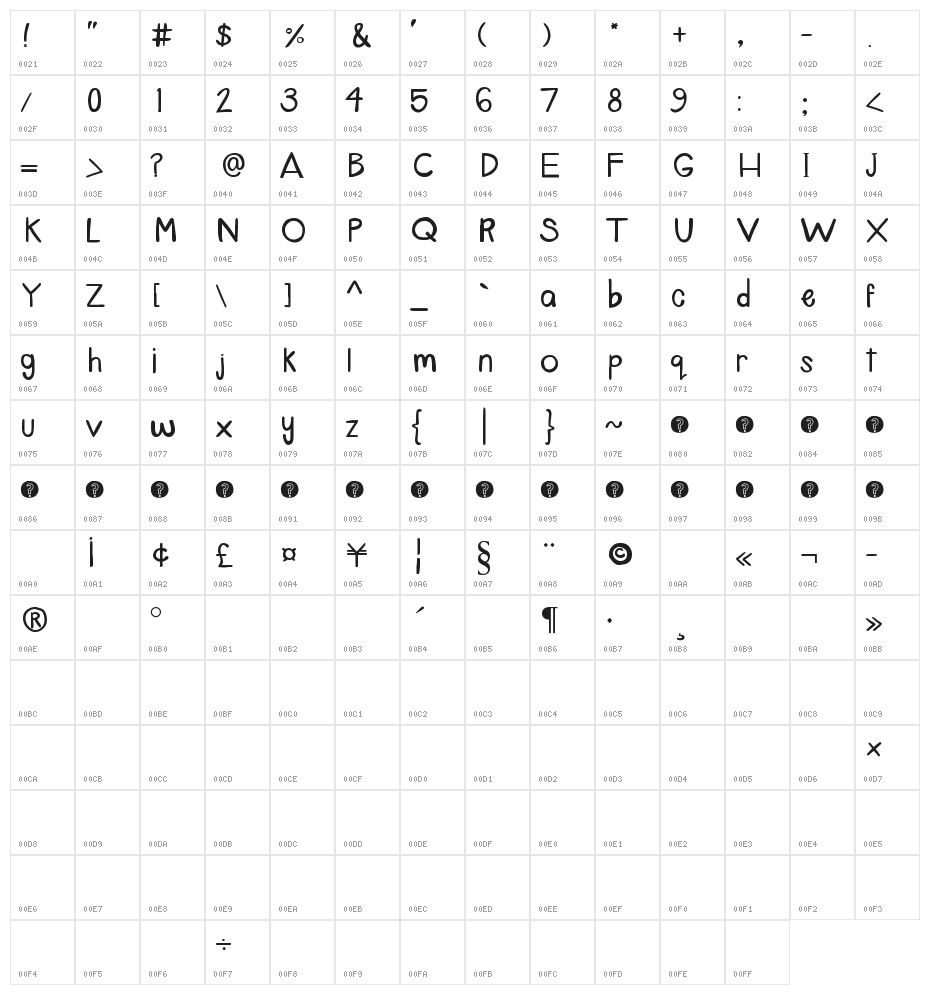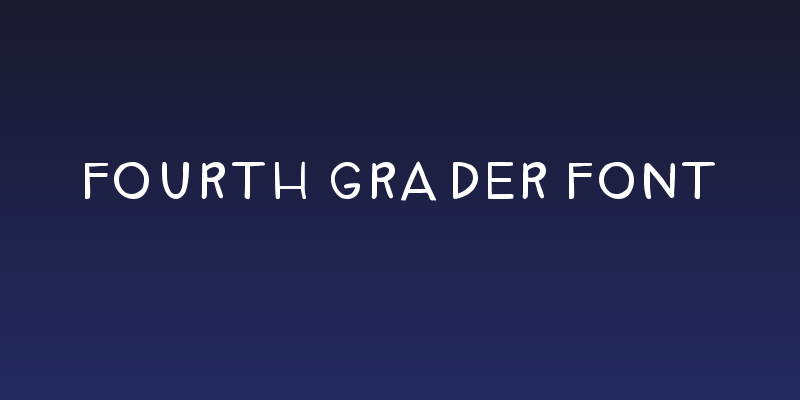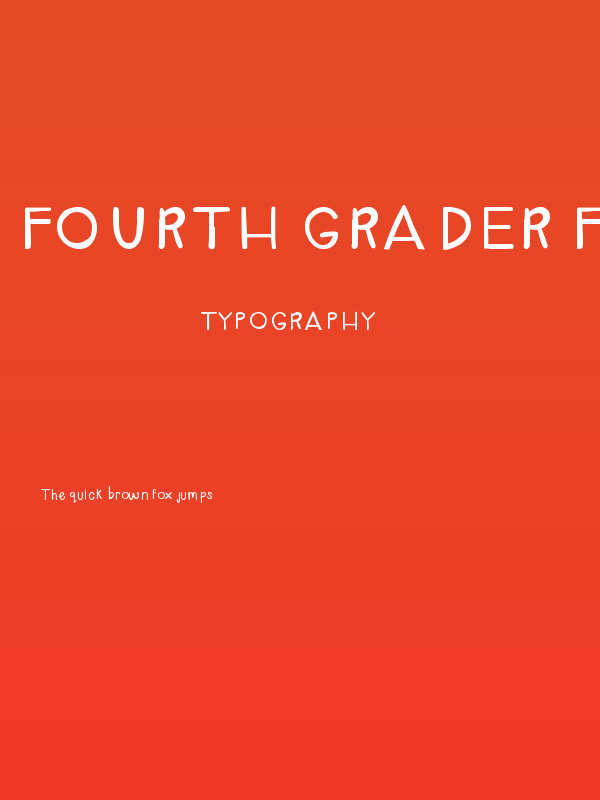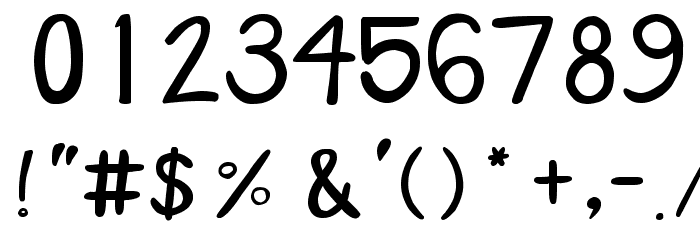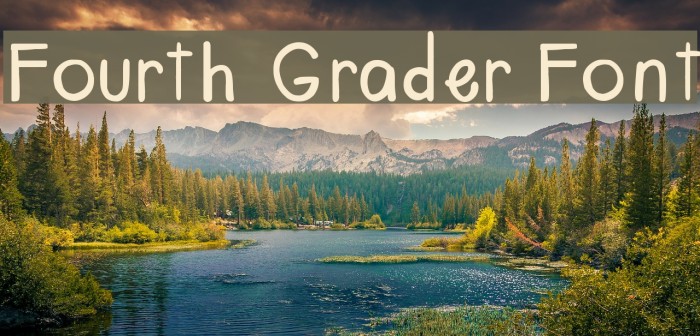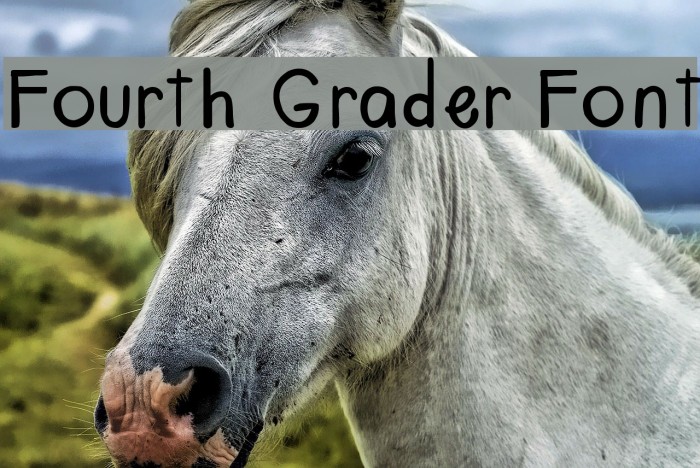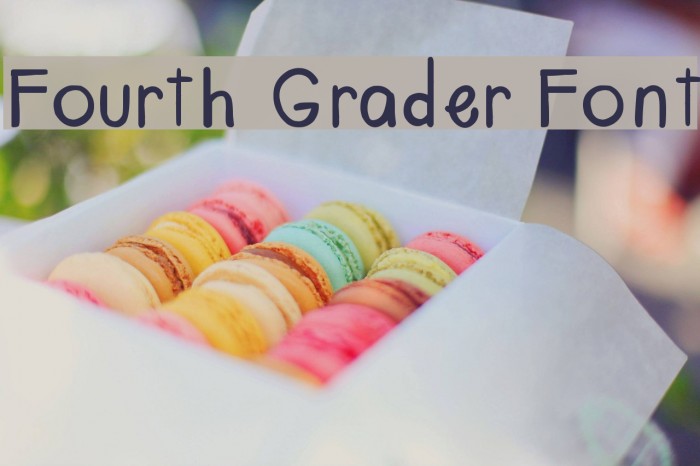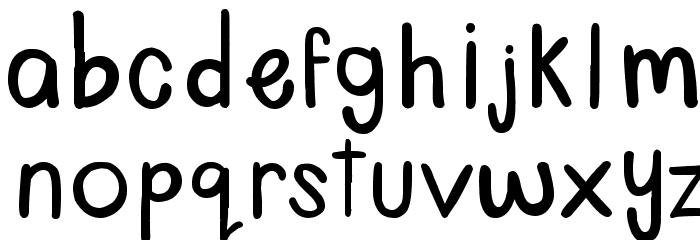
Fourth Grader Font Font
Fourth Grader Font Description
This playful and informal font captures the essence of youthful handwriting, reminiscent of a child's schoolwork. The characters are rounded and slightly irregular, giving a whimsical and approachable feel. The uppercase and lowercase letters maintain a consistent style, with a slight tilt and varying stroke thickness that adds to the hand-drawn aesthetic. Numbers and special characters follow the same playful design, making this font versatile for creative projects. Its charm lies in its simplicity and the personal touch it conveys, making it ideal for projects that require a friendly and informal tone.
| Overall Style | Playful, Informal |
| Proposed Projects | Ideal for children's books, educational materials, greeting cards, and playful branding. |